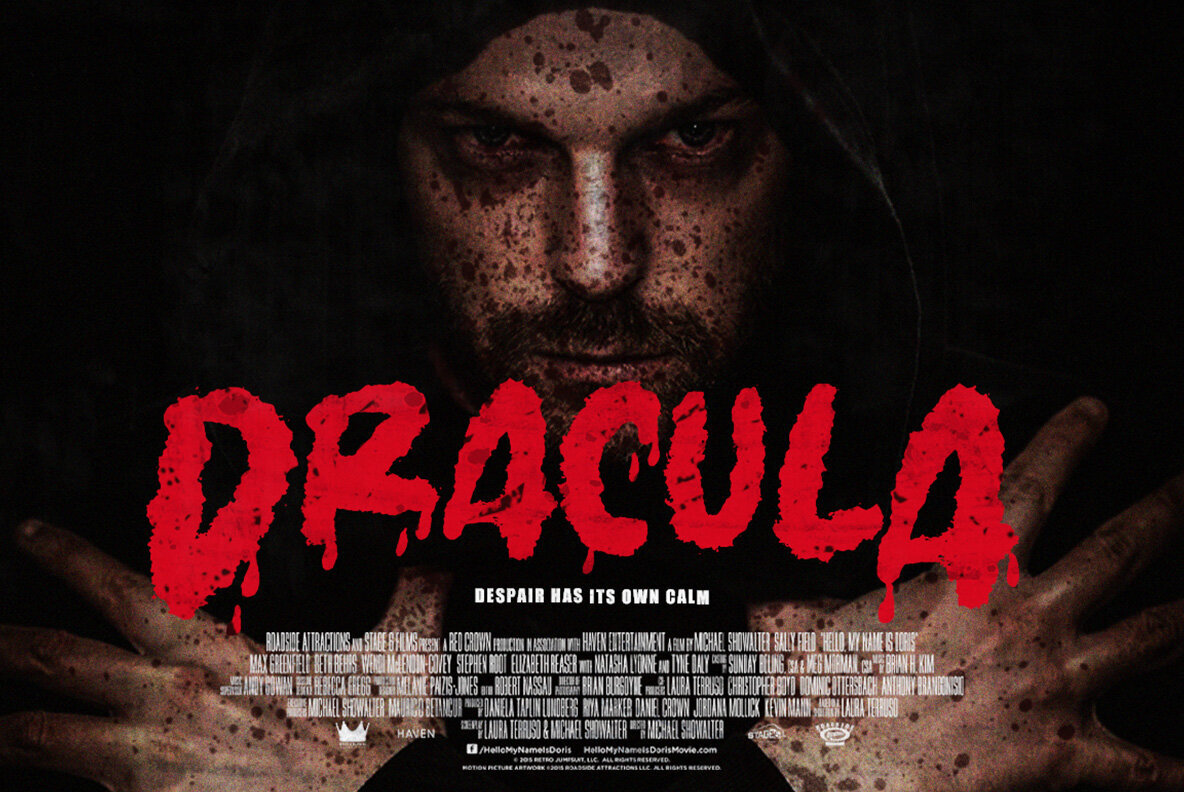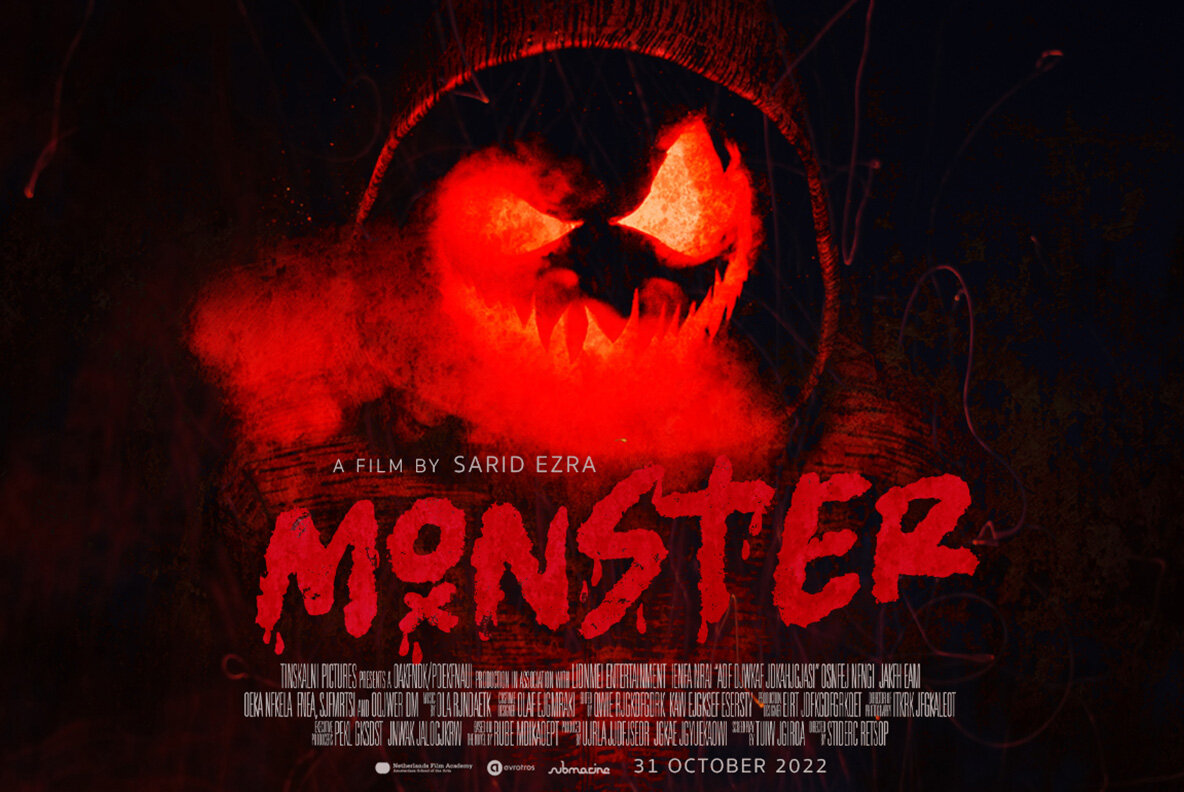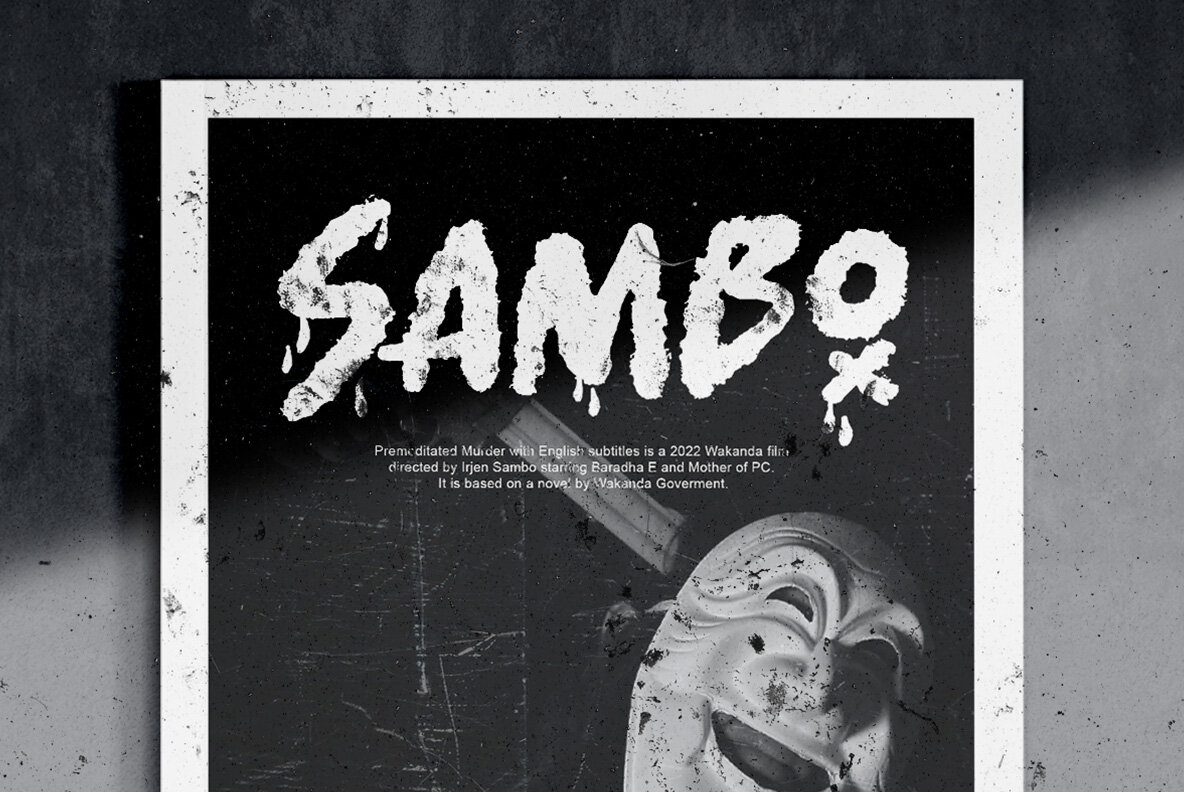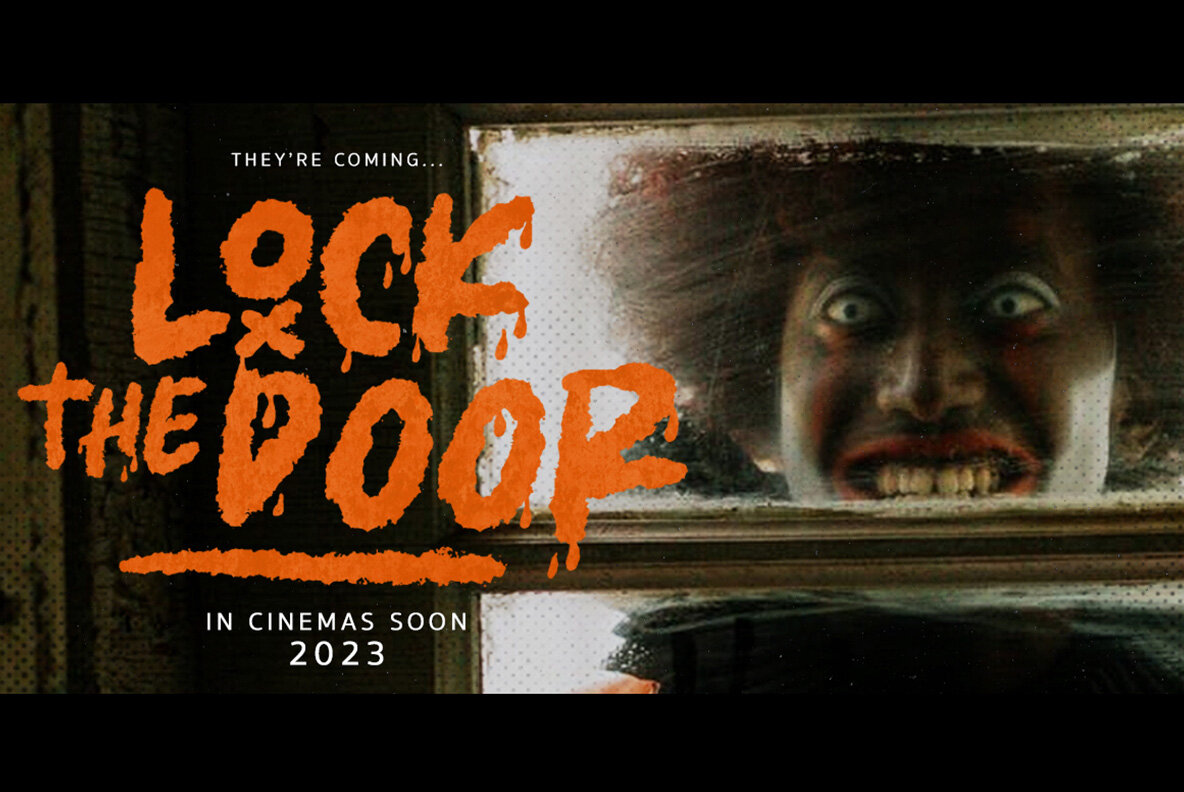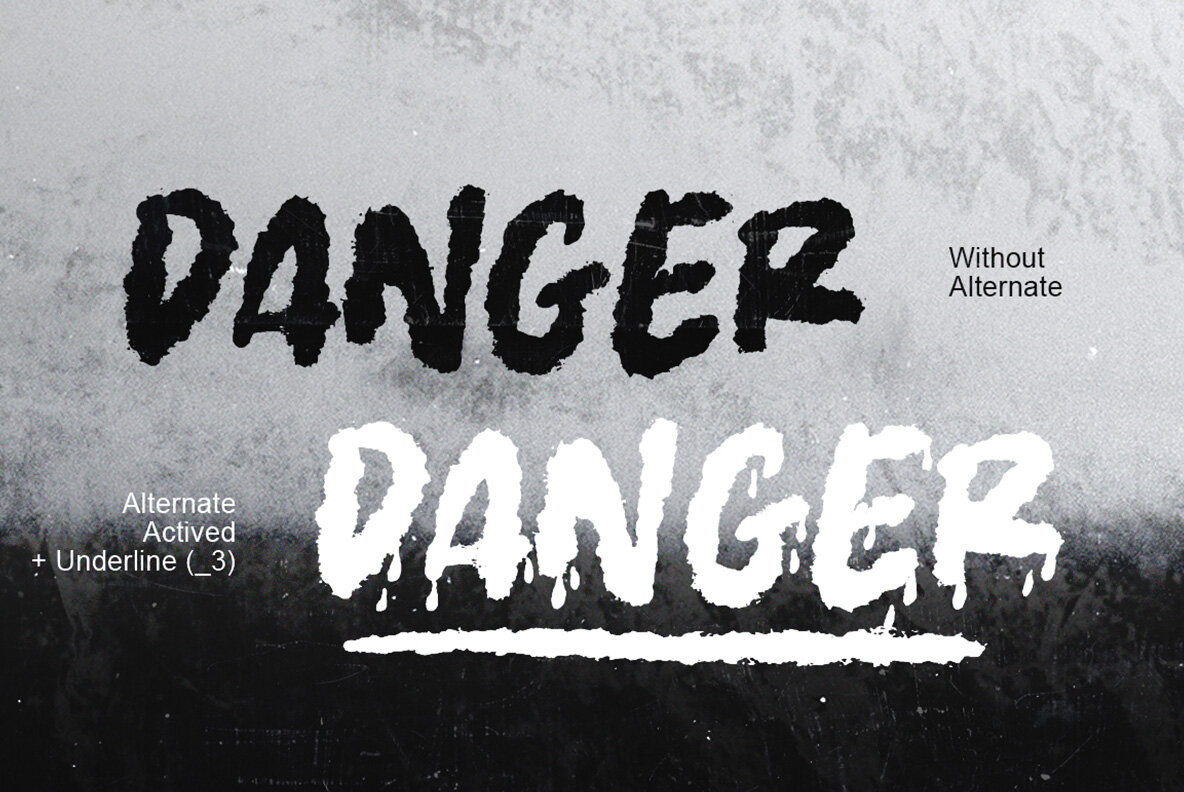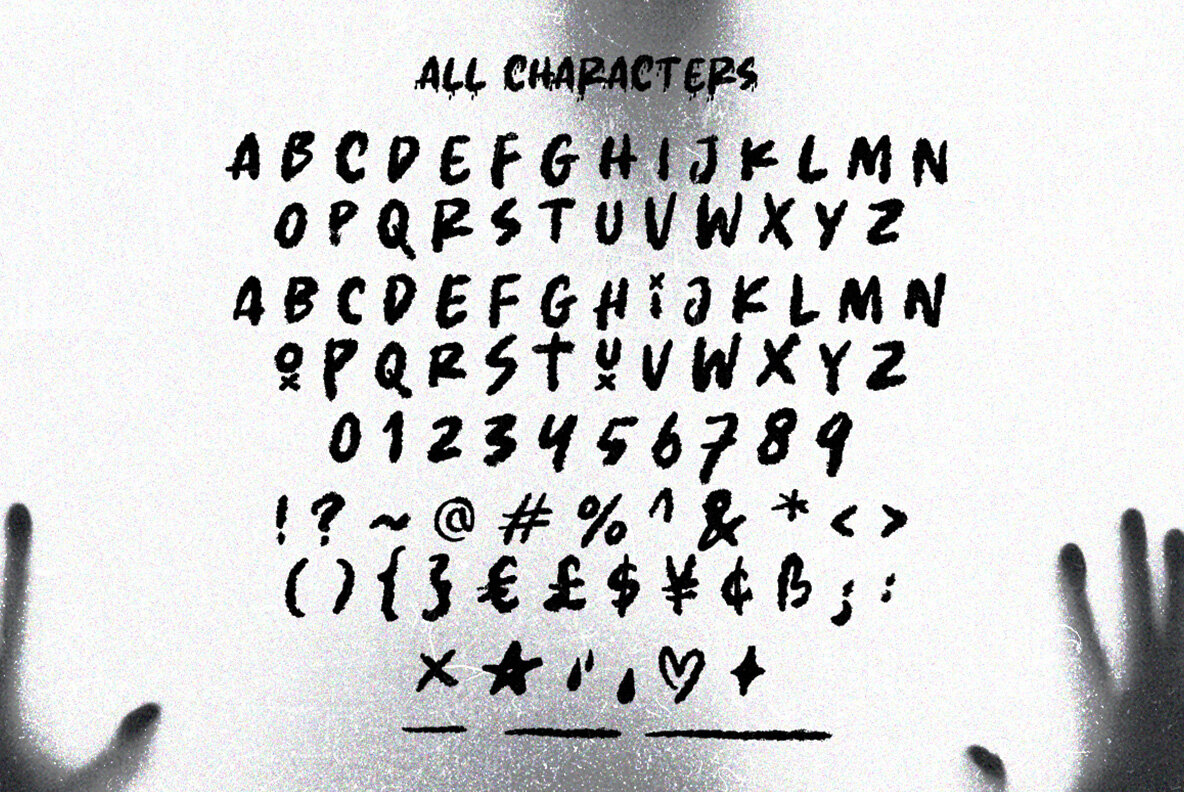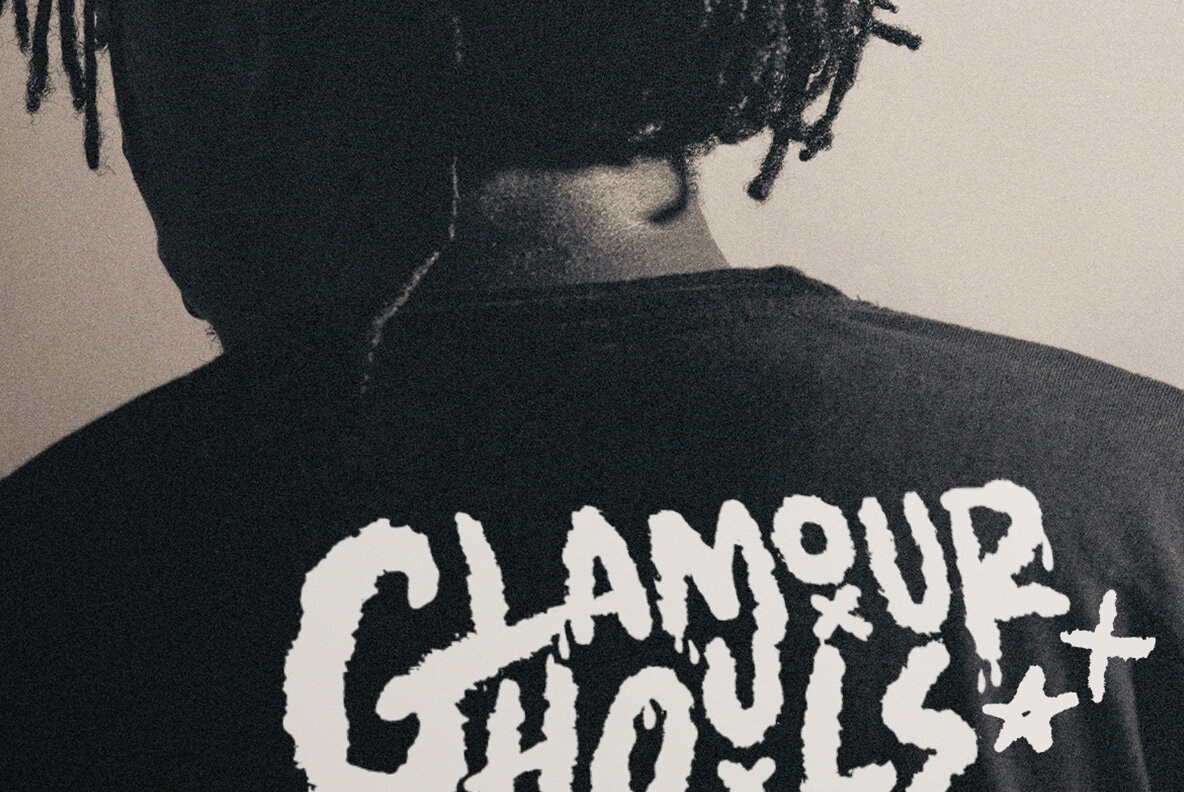
Fright Hours Font
Fright Hours is a great font for use in poster or movie designs that have horror and freaky vibes! With multiple languages supported, this could be your next Halloween event's sign off.